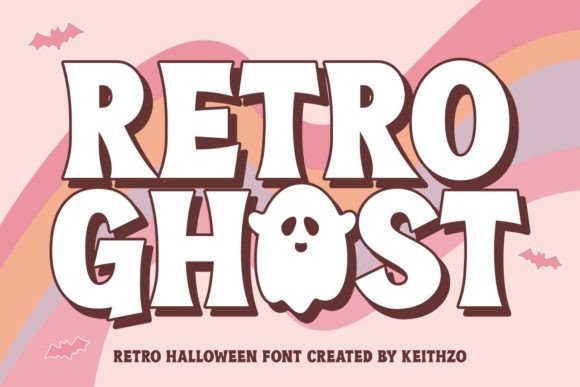
Introducing Retro Ghost Font, a captivating addition to your font collection. Created by the talented Keithzo from 7NTypes, this display font is not just any ordinary typeface - it is an experience in itself. With its charming and playful design, Retro Ghost Font will transport you to a world of nostalgia and creativity.
When it comes to expressing friendliness and approachability, Retro Ghost Font is second to none. Its child-like charm and easy-to-read style make it perfect for a wide range of projects. Whether you're working on crafts, digital designs, presentations, or even making personalized greeting cards, this font will effortlessly add a touch of magic to your creations.
But what sets Retro Ghost Font apart from the rest? Its versatility and adaptability. With its wide range of applications, this font is perfect for any occasion. Need to create an eye-catching poster for a child's birthday party? Retro Ghost Font will bring your designs to life with its playful personality. Want to add a touch of whimsy to your blog or website? Look no further than this font to captivate your audience.
When it comes to marketing your products or services, the right font can make all the difference. With Retro Ghost Font, you can elevate your brand and leave a lasting impression on your audience. Its unique style and captivating presence will make your content stand out from the crowd, ensuring that your message is heard loud and clear.